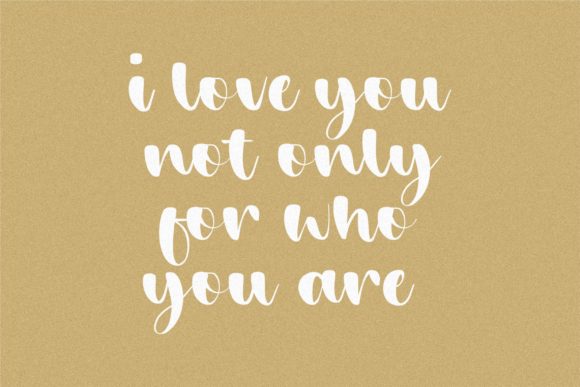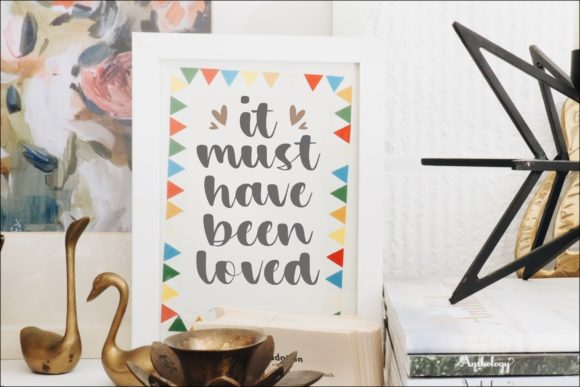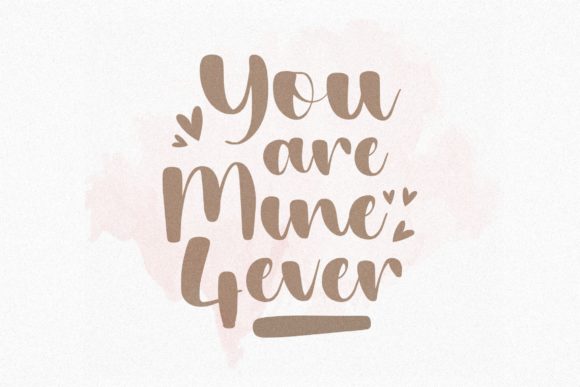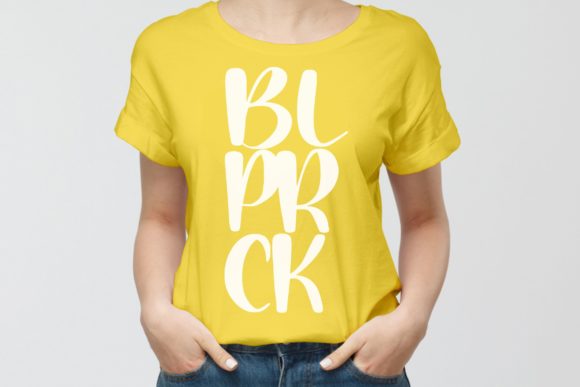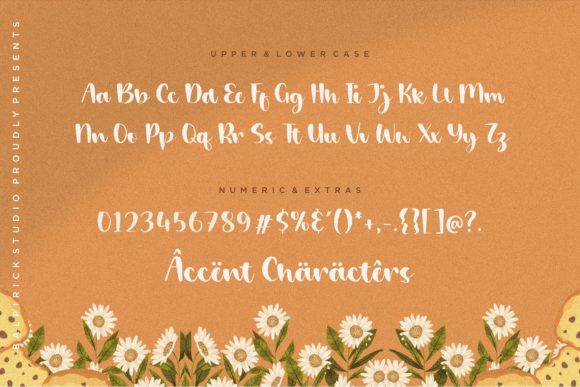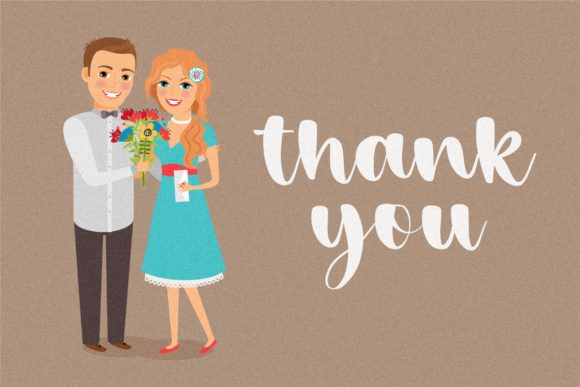
Introduction to Cutie Biscuit Font
Have you ever been working on a creative project, staring at a blank page, and desperately searching for the perfect font to give your design that extra oomph? You know, that moment when you just want to jump into a world of typography and let your imagination run wild? For many designers, finding the right font can be the difference between a good design and a great one. That’s where the lovely Cutie Biscuit Font comes in – a beautiful, thick-lettered handwritten font that’s sure to add a stylish touch to your headlines and logotype projects.
Whether you’re a seasoned designer or just starting out, the Cutie Biscuit Font is an invaluable resource that’s sure to elevate your designs. With its confident and dynamic feel, it’s the perfect addition to any project looking to add a touch of nostalgia and high-quality flair. And the best part? It’s available for free download with a transparent background, making it easy to incorporate into your designs. In this article, we’ll dive deeper into the world of Cutie Biscuit Font and explore its many uses and benefits.
Key Features of Cutie Biscuit Font
- High-quality, free download font suitable for various creative projects, including digital designs and print materials.
- Unique, whimsical design with a transparent background, making it ideal for backgrounds, overlays, and other design elements.
- Includes a wide range of characters, including uppercase and lowercase letters, numbers, and special symbols.
- Suitable for use in various design contexts, including logos, branding materials, and web design elements.
Honest Review: Cutie Biscuit Font
As a designer, I’ve come across numerous fonts, but the Cutie Biscuit Font caught my eye. This charming font is perfect for adding a touch of whimsy to your creative projects.
- ✨ The font’s playful, handwritten feel makes it ideal for crafting unique headings and titles.
- ✨ The high-quality design ensures that the font looks crisp and clear on various backgrounds.
However, I did encounter some limitations while using the Cutie Biscuit Font. Specifically, ⚠️ the font lacks versatility in terms of size adjustments, which can make it difficult to use in conjunction with other font styles.
- ⚠️ The font’s design may not be suitable for formal or professional projects, as it has a more casual, playful tone.
Overall, I’d give the Cutie Biscuit Font a solid 4 out of 5 stars. It’s a fantastic design resource for creative projects, but it may not be the best fit for every design scenario.
The Cutie Biscuit Font is a versatile design resource that can be used in a variety of creative projects, including blog posts, social media graphics, and marketing materials. It’s perfect for designers who want to add a touch of whimsy and personality to their designs.
To get the most out of the Cutie Biscuit Font, try using it in combination with other design elements, such as bold colors and playful illustrations. You can also experiment with different font sizes and styles to create a unique and eye-catching design.